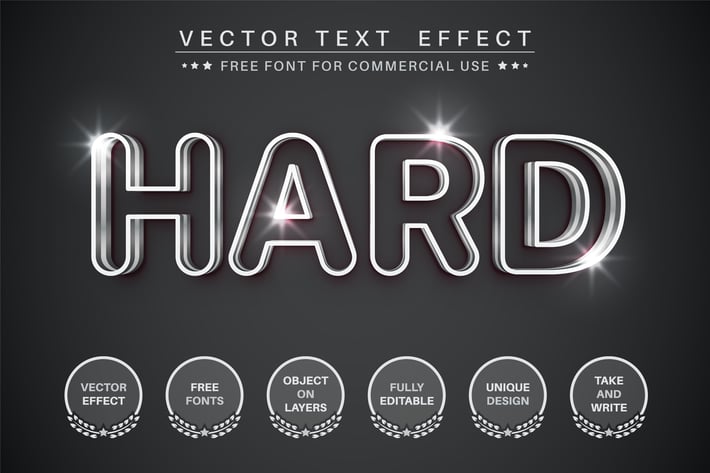
Hard Metal - editable text effect, font style
Hello! I'm happy to introduce my new text effect "Hard Metal". Just write your word and the effect will apply! Be as creative as you like to be in expressing yourself using this unique “Hard Metal”. Effect is perfect for any project that needs a unique handy touch whatever else your imagination leads you to!